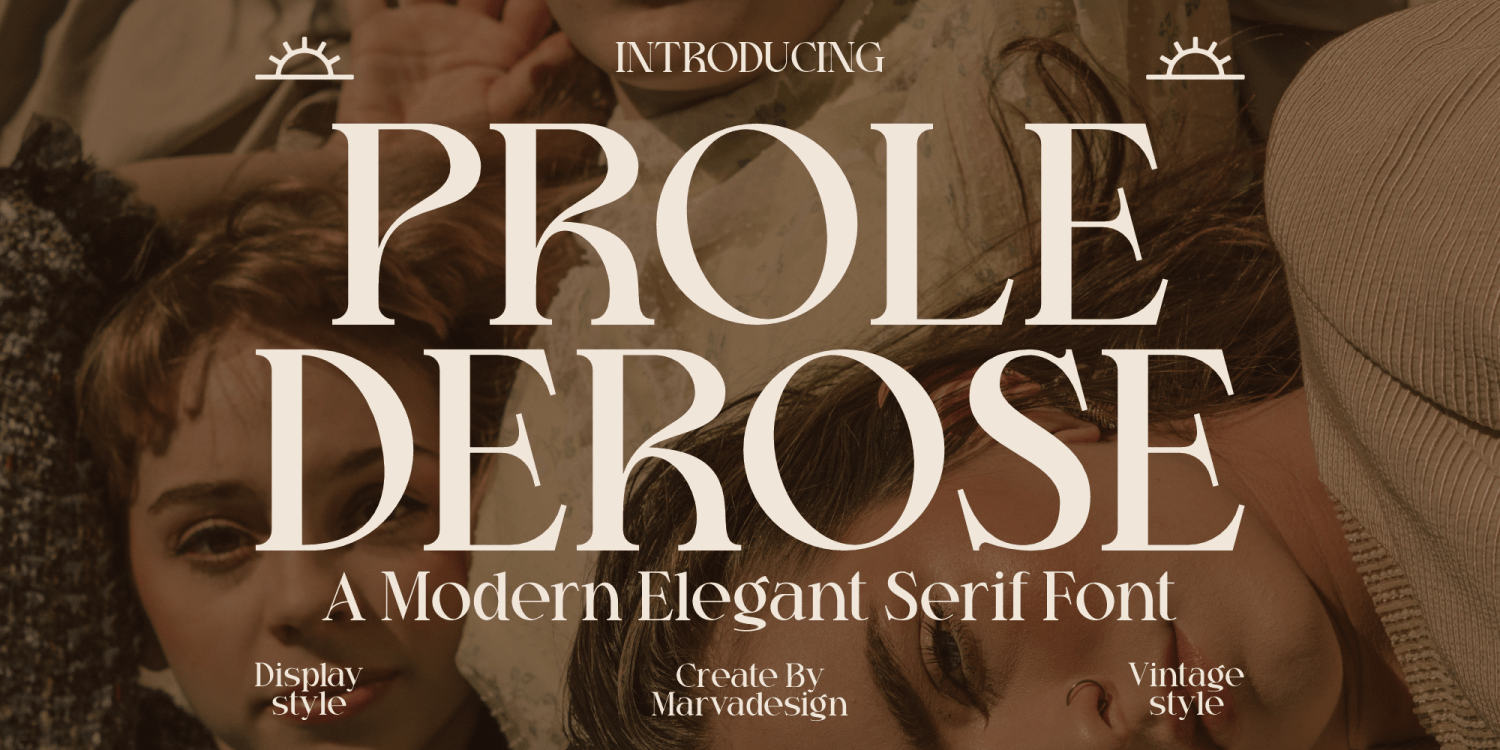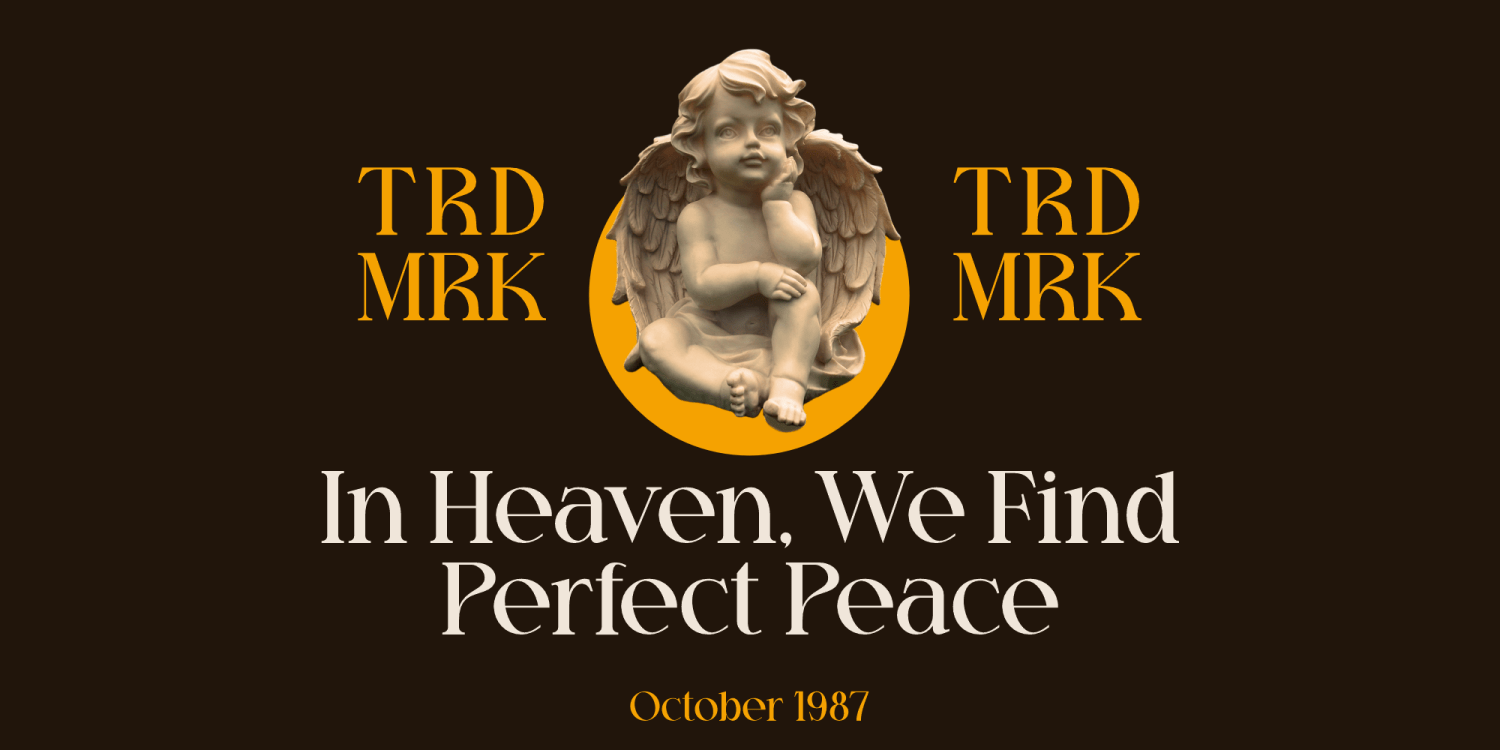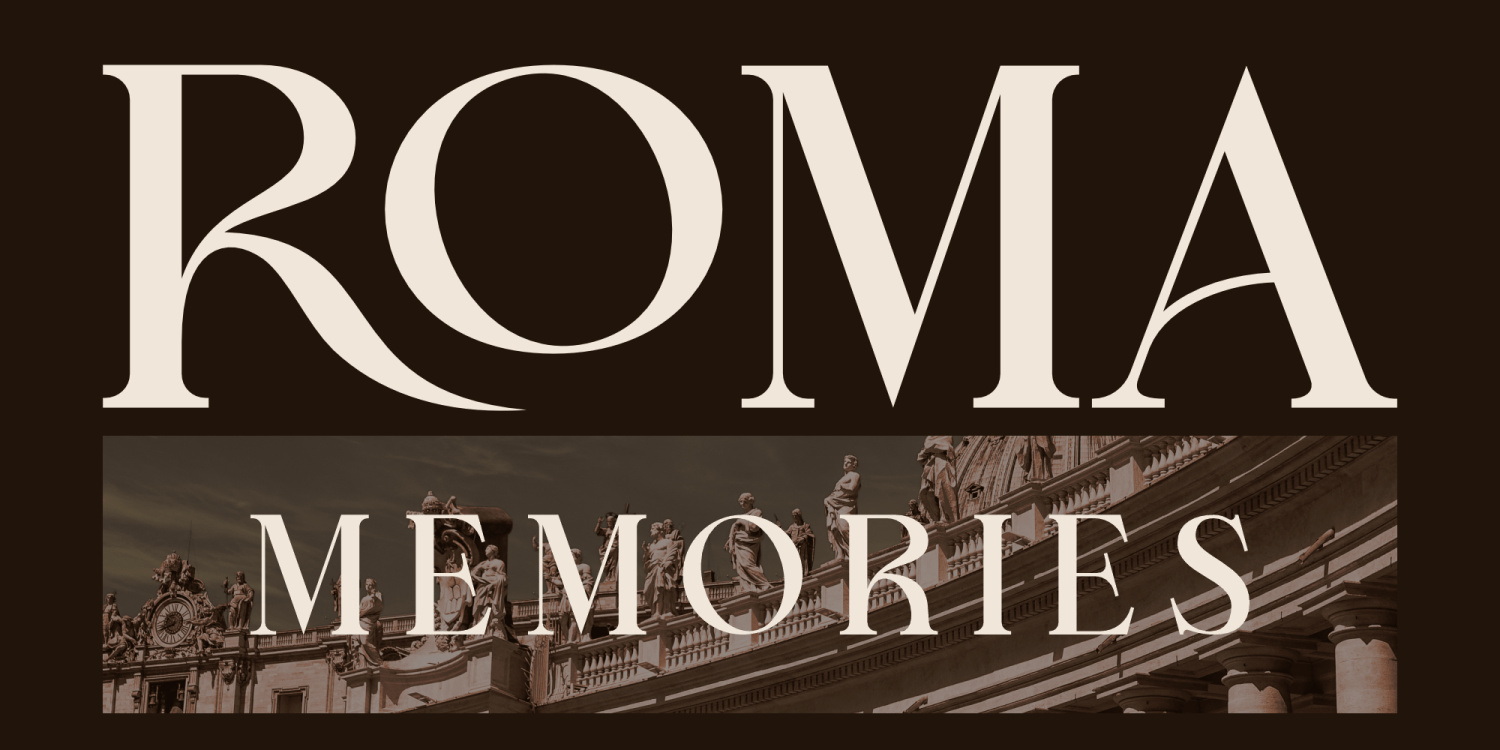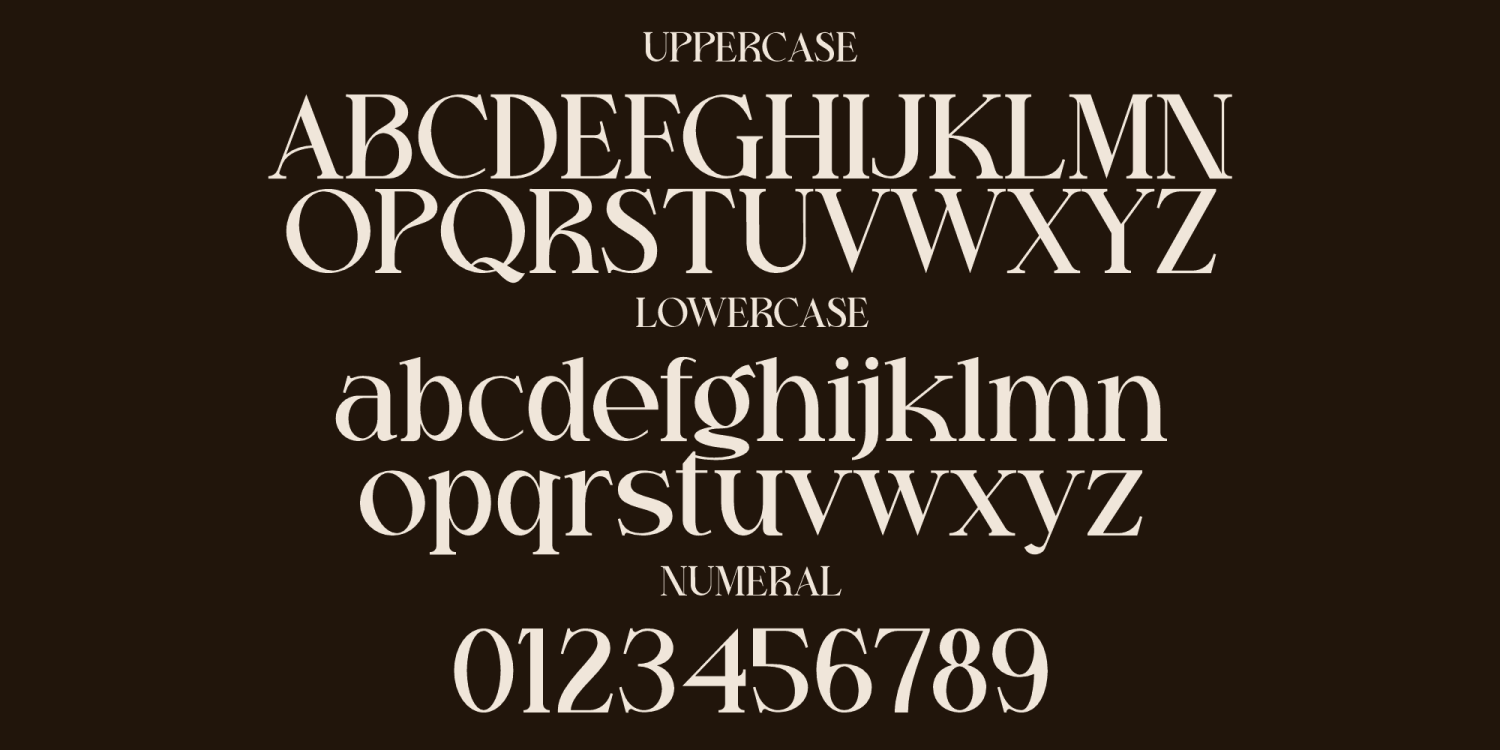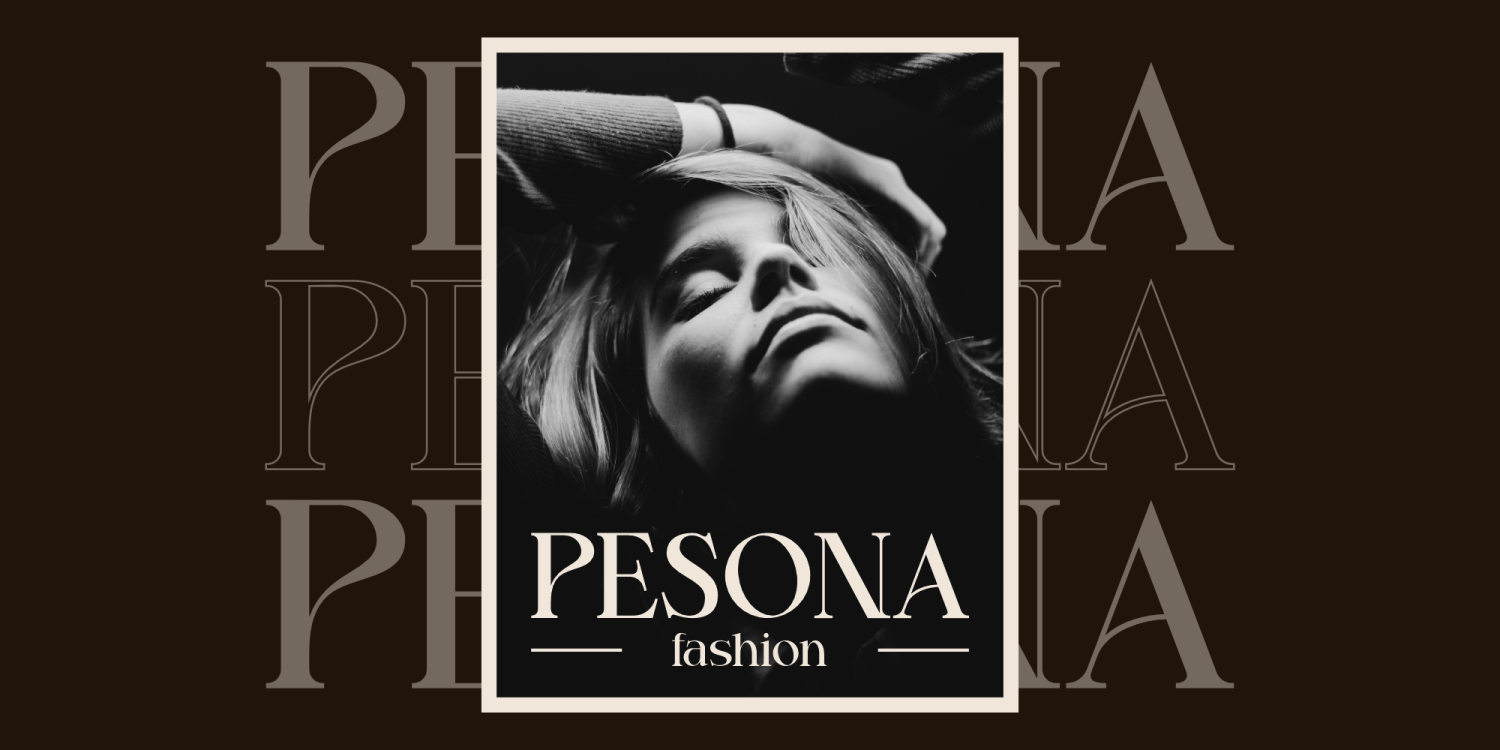
Prole Derose
Introducing Prole Derose is a modern and elegant serif typeface with a distinctive vintage charm. It features high contrast between thick and thin strokes, creating a sophisticated and refined appearance. The graceful curves and sharp serifs add a sense of luxury and timelessness, making it an excellent choice for branding, editorial design, and high-end packaging.
Designed with meticulous attention to detail, this typeface balances classic elegance with contemporary aesthetics. Its harmonious letterforms and subtle decorative elements contribute to a unique and artistic appeal. Ideal for display use, this font enhances the visual impact of titles and headlines while maintaining readability. It is perfect for projects that demand a prestigious, stylish, and highly distinguished typographic presence.